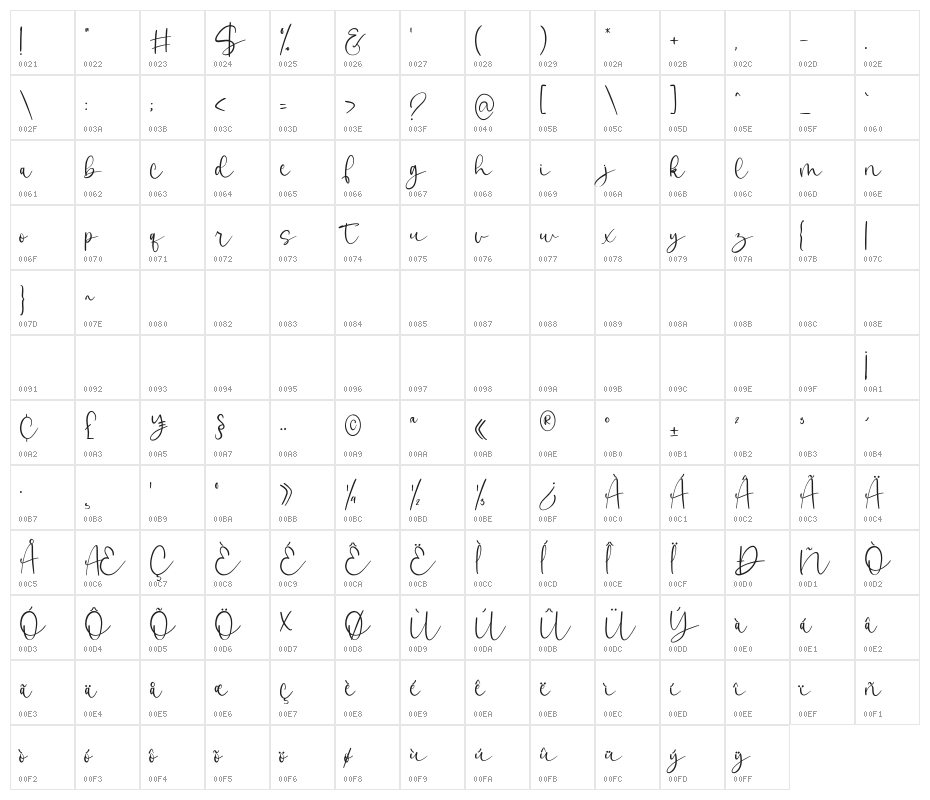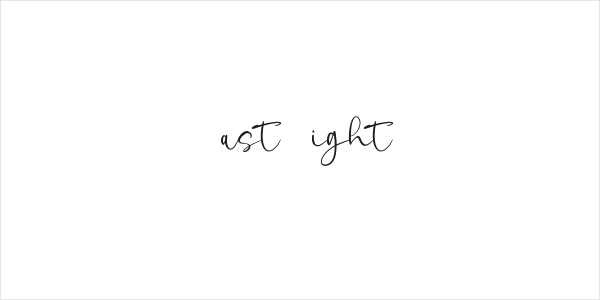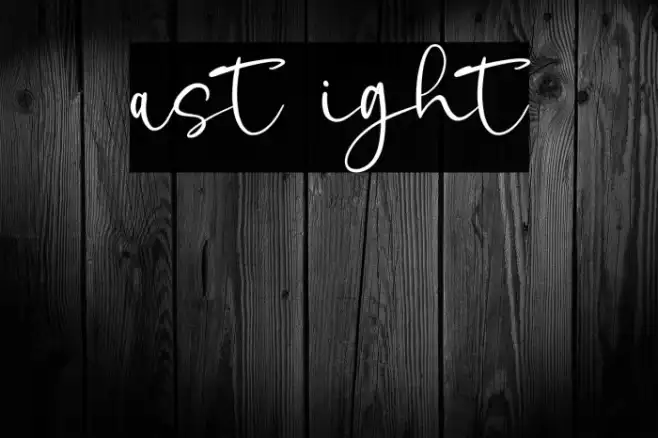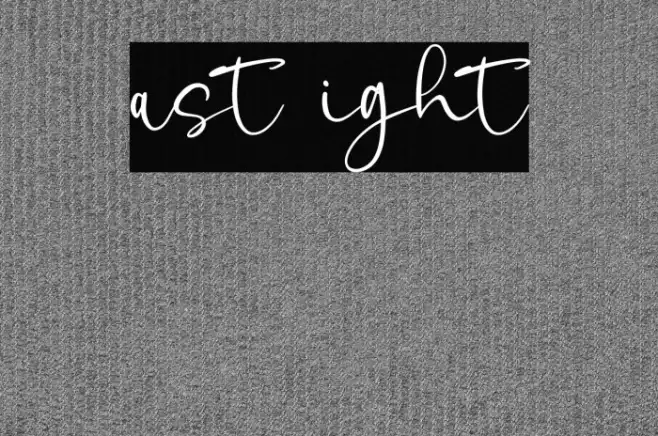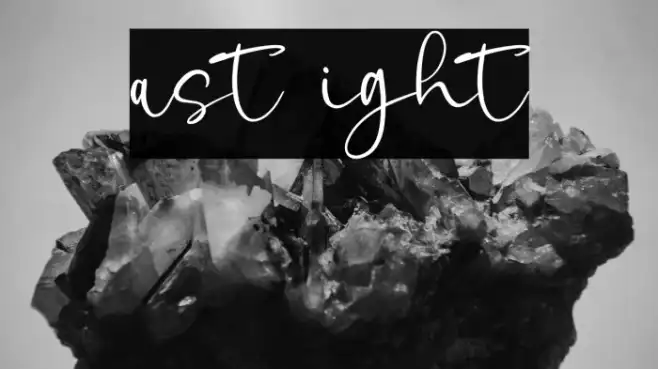
Last Night Font
Last Night Description
This font features a flowing, cursive style that mimics elegant handwriting. The characters are connected in a smooth, continuous manner, giving it a personal and artistic touch. The strokes are consistent in thickness, providing a balanced and harmonious appearance. The lowercase letters have a playful loop and swirl, adding a whimsical feel. The uppercase letters are similarly styled, maintaining the fluidity and grace of the script. This font is ideal for projects that require a personal, handwritten look, such as invitations, greeting cards, or branding that seeks to convey warmth and creativity.
| Proposed Projects | Ideal for wedding invitations, personal branding, greeting cards, and artistic projects. |